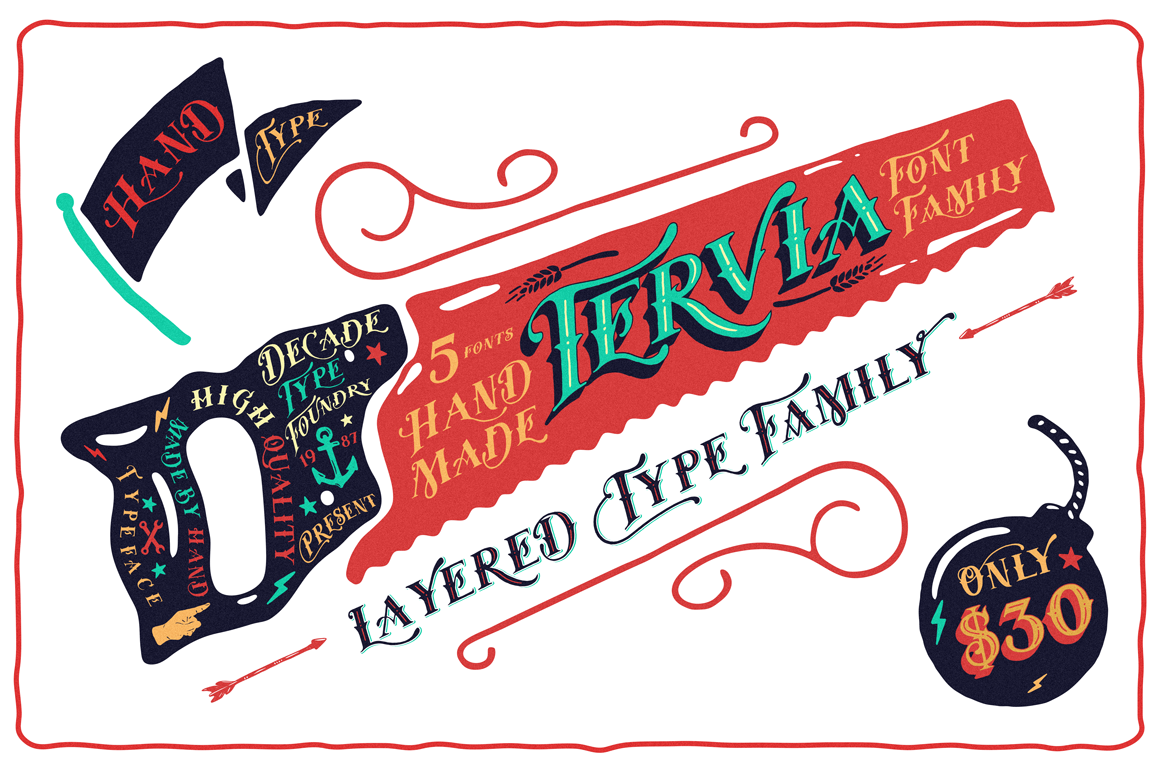
Tervia Font Family
The Tervia Family Font is an oldstyle handmade typeface inspired by sign painting art. This font family consists of 4 layer-based fonts and 1 dingbats which very ideal as display font. It will help you create outstanding design for posters, logos, cards, labels and more design project that need creativity. Just play with the stylistic alternates using common Open-Type Features supported software and application and get the classic, fun, cool yet natural feel. Tervia Family font also includes extended characters for multilingual support. Here a link where you can see the alternate characters : https://goo.gl/ApLtuV